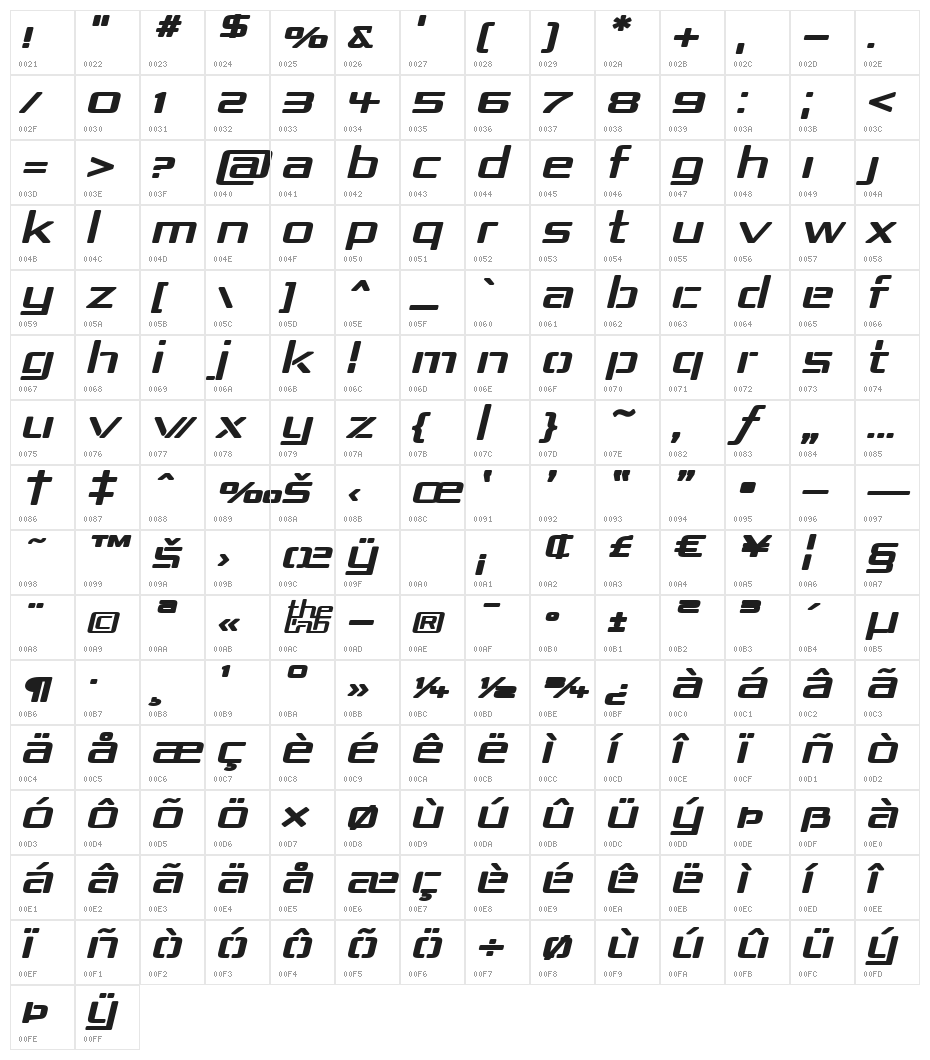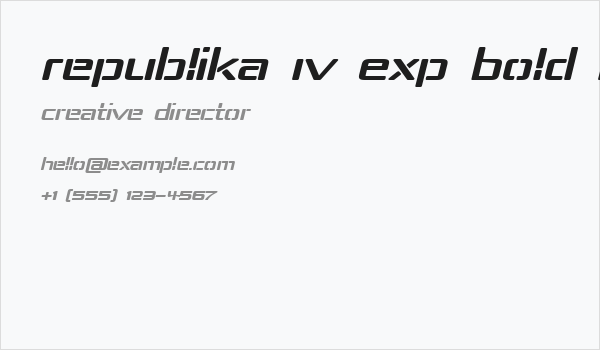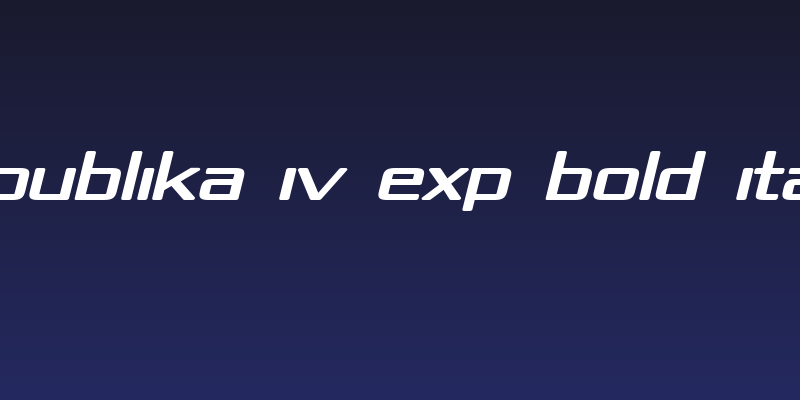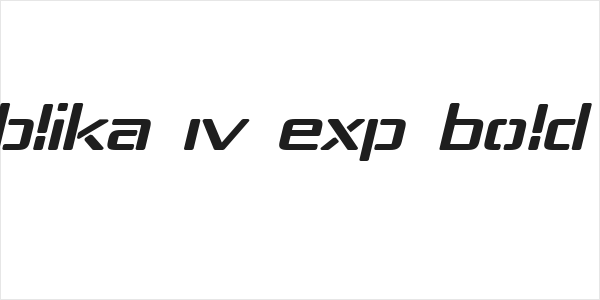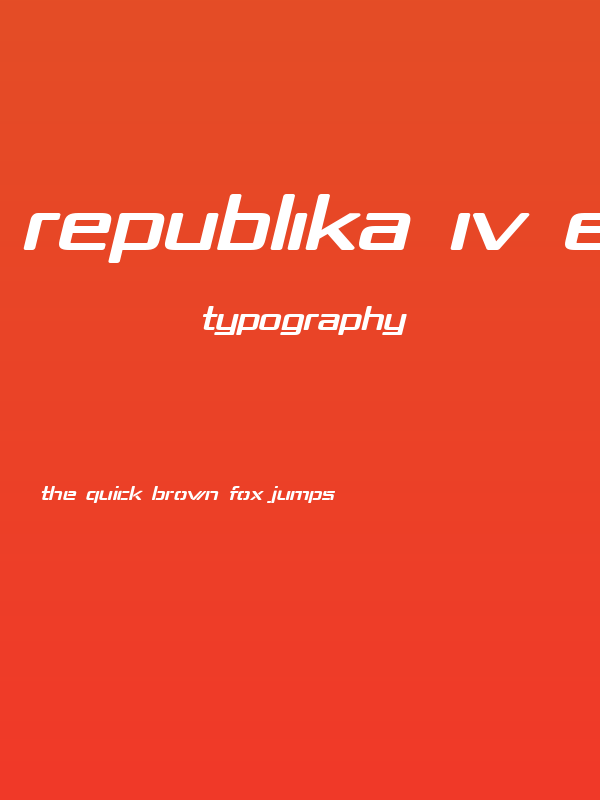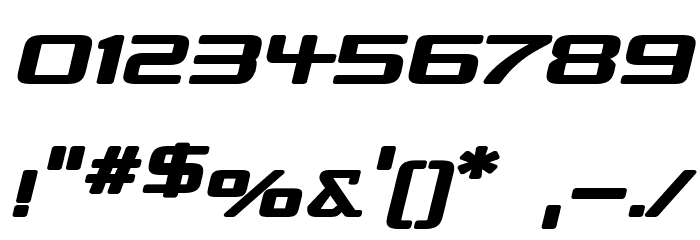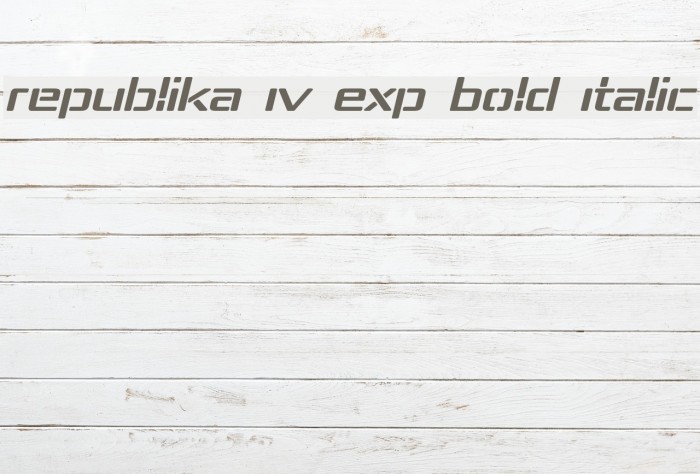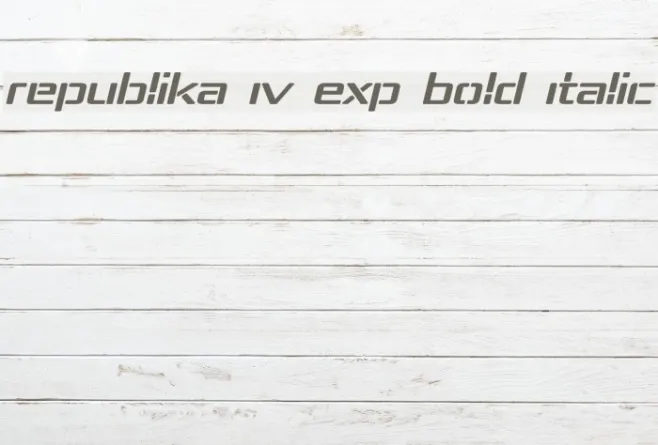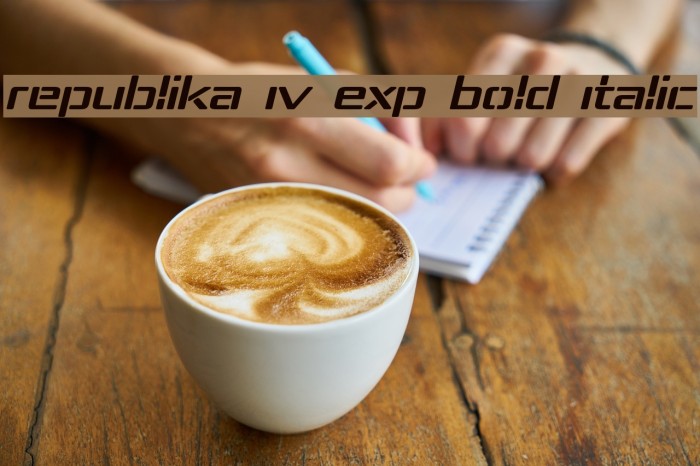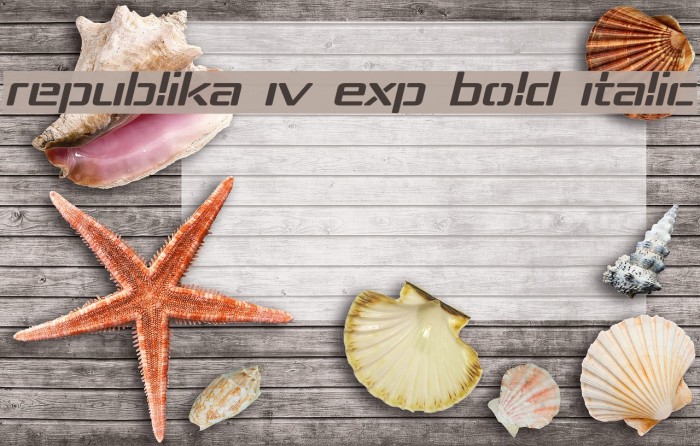
Republika IV Exp Bold Italic Font
Republika IV Exp Bold Italic Description
This font exhibits a bold and italicized style with a futuristic and dynamic appearance. The characters are slightly slanted, giving a sense of motion and speed. The strokes are thick and consistent, providing a strong visual impact. The design features rounded edges and a geometric structure, making it suitable for modern and tech-oriented themes. The numbers and special characters maintain the same bold and italicized characteristics, ensuring uniformity across all glyphs.
| Proposed Projects | Ideal for technology branding, sports team logos, video game titles, and modern advertising campaigns. |